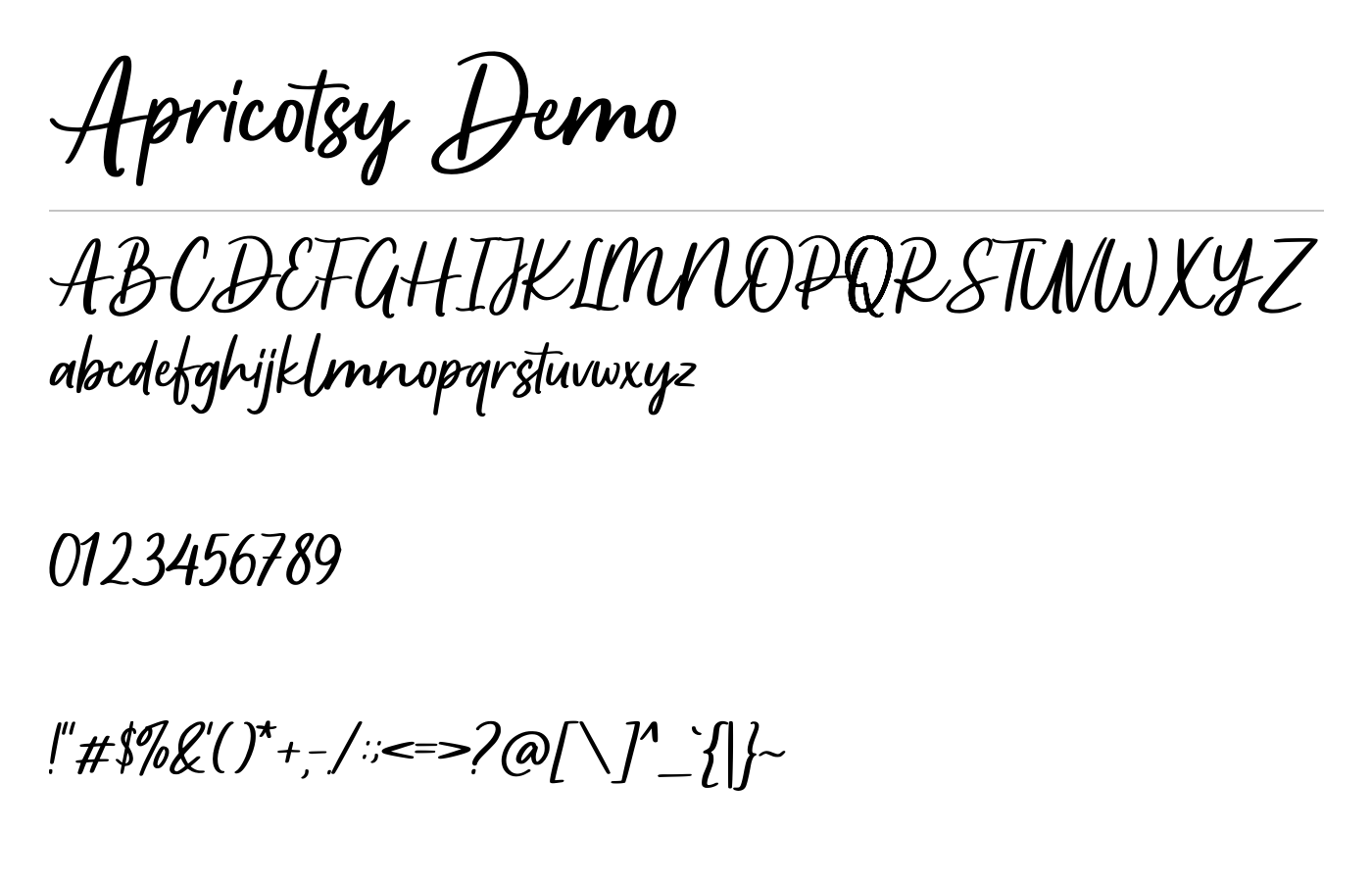
Apricotsy Demo is a lively, handwritten script font featuring a smooth, casual flow with moderate contrast and slightly tall letterforms. Its friendly and approachable style makes it a great choice for creative branding, invitations, and social media graphics where a personal and modern touch is desired. The font's clean readability and elegant curves lend a charming feel, perfect for projects that want to convey warmth and personality.
Apricotsy Demo Font
About Apricotsy Demo Font